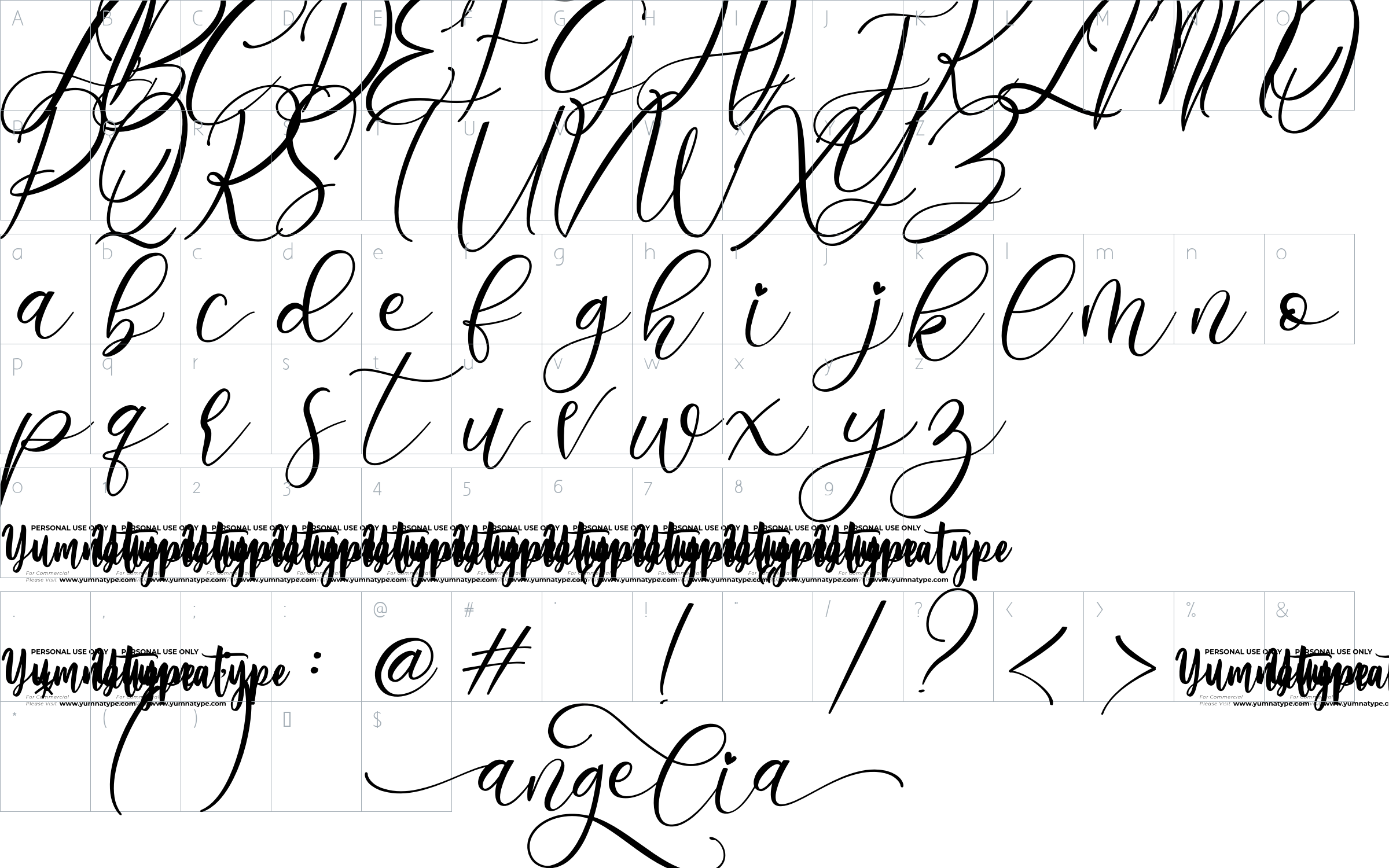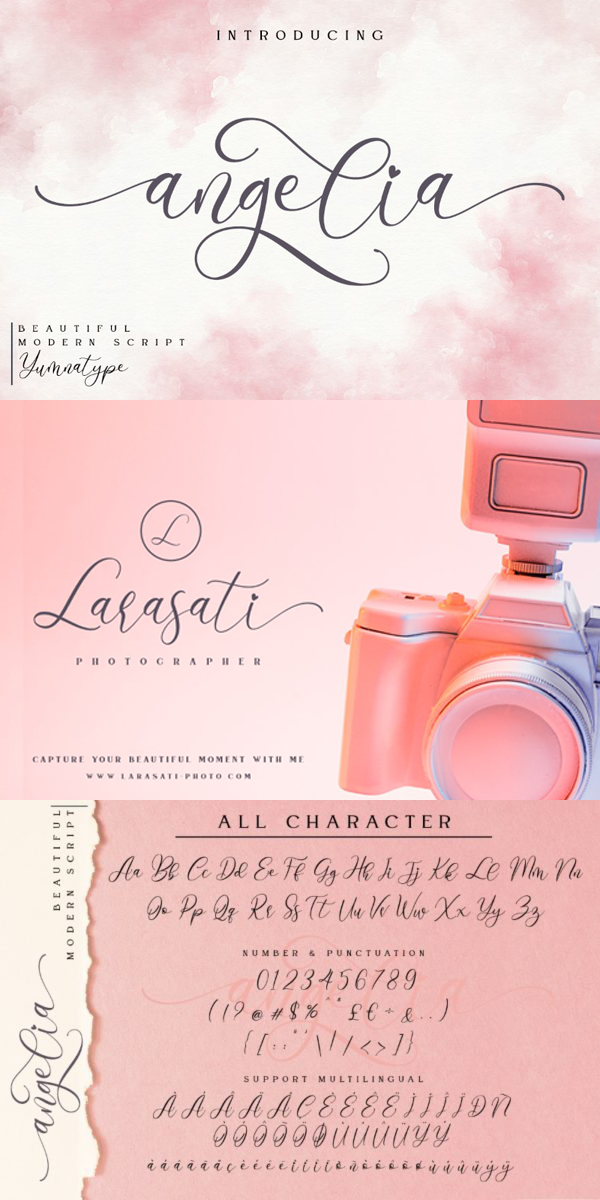
Angelia Font
About Angelia
Say hello to Angelia – Lovely Script.
Angelia is beautiful and modern script.
It brings a beautiful and modern typeface that best used for weddings, branding, logotype, and quotes.:
Features :
-6 Beautiful Ligatures
-9 Beautiful Alternates
-Beginning Swash and Ending Swashes (a-z)